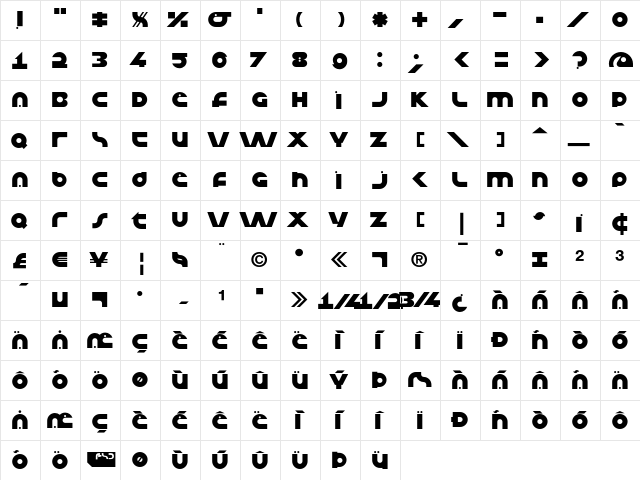
Eco Regular Font Preview
Eco Regular
Design Context for Eco Typeface
Eco is a composed and adaptable typeface that performs quietly and consistently across a wide range of design contexts.